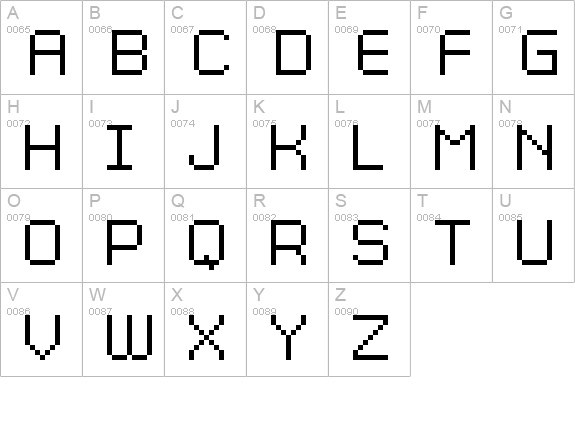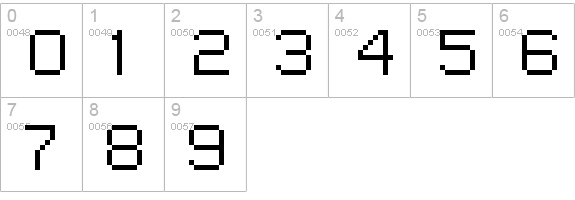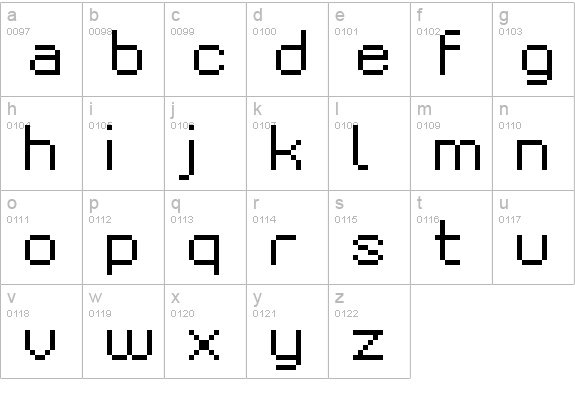
Grixel Kyrou 9 Regular is the standard, neutral variant in the Grixel typeface family \xE2\x80\x94 well suited to general body text, paragraphs, and standard typographic work.
Grixel Kyrou 9 Regular font is a versatile and modern typeface that exudes a sense of sophistication and elegance. With its clean lines and sharp edges, this font is perfect for a wide range of design projects, from branding to web design. The Grixel Kyrou 9 Regular font strikes the perfect balance between professionalism and creativity, making it a top choice for designers looking to make a bold statement. The best part? Grixel Kyrou 9 Regular font is completely free to download at FontsMarket.com. This means you can easily access this high-quality font without breaking the bank. Whether you're a seasoned designer or just starting out, Grixel Kyrou 9 Regular font is a must-have addition to your font collection. Download it today and elevate your designs with this stunning typeface.